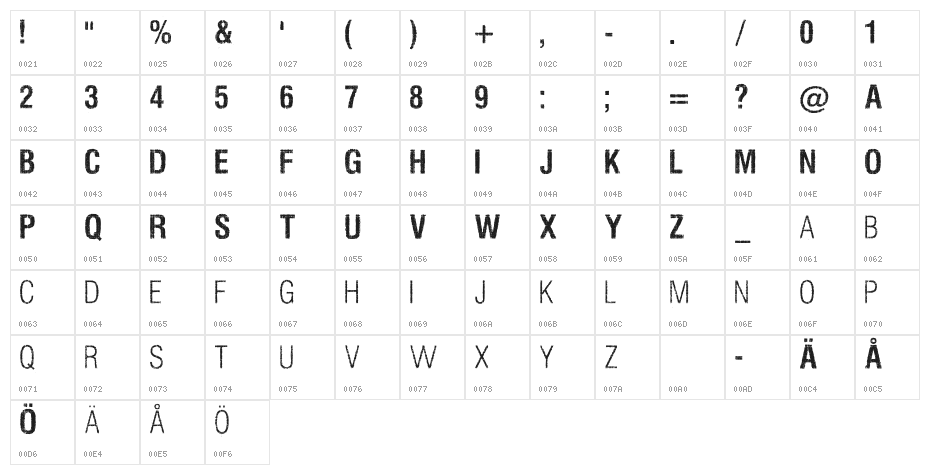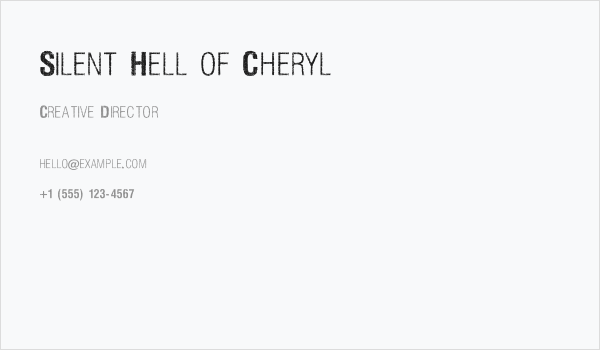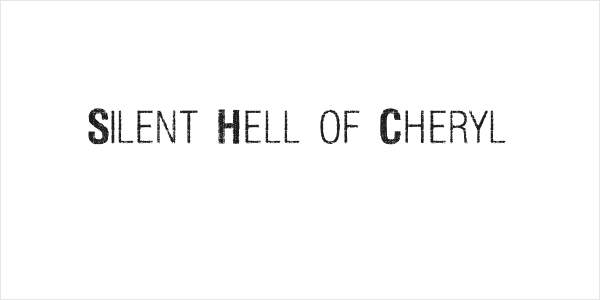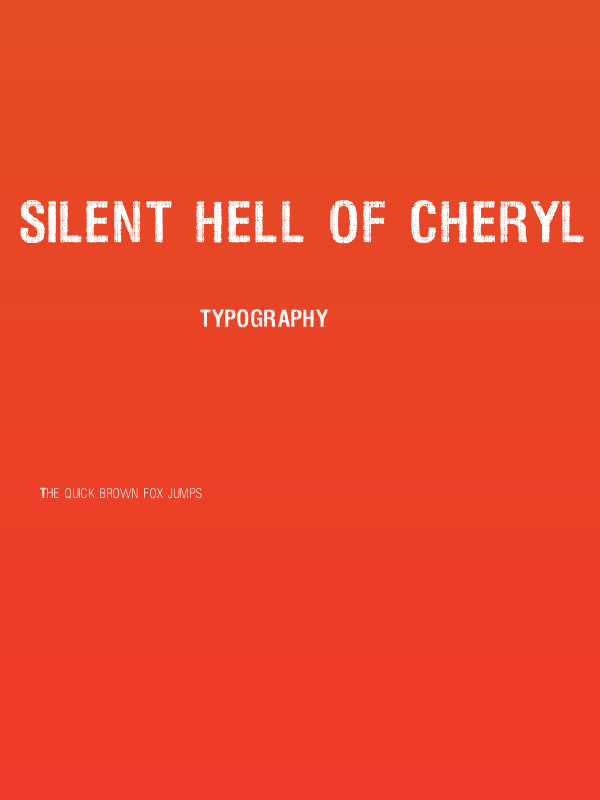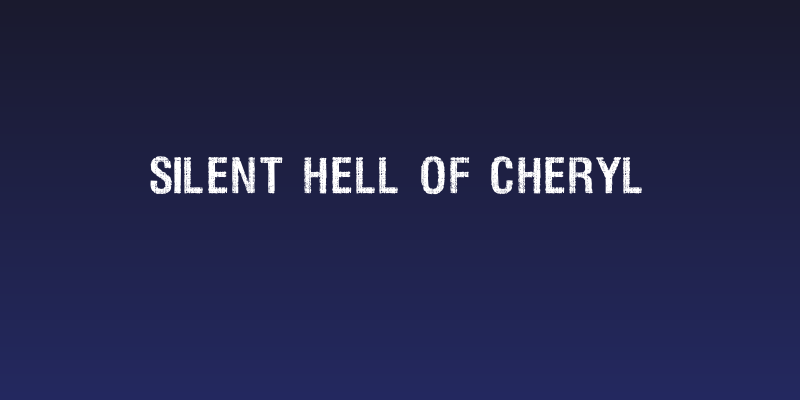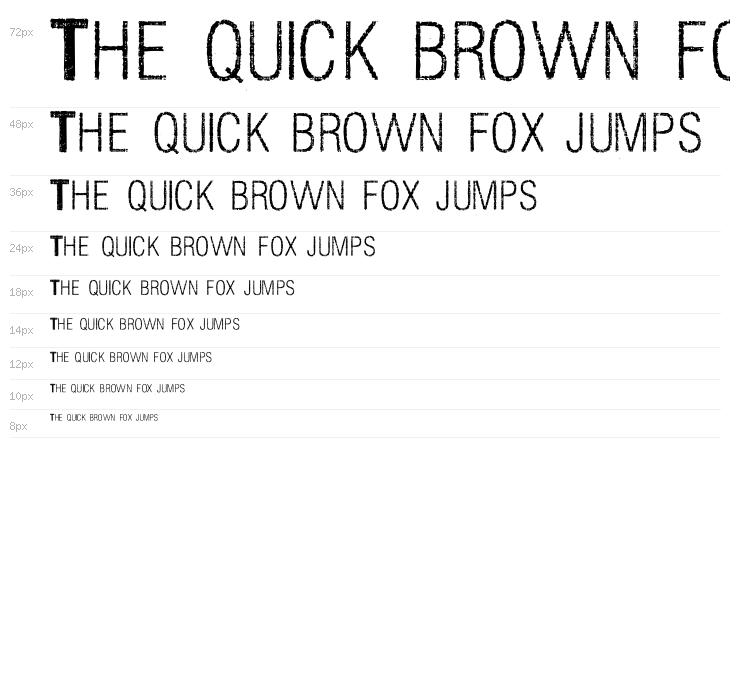
Silent Hell of Cheryl Font
Silent Hell of Cheryl Description
This font exhibits a distressed, grunge aesthetic with a textured appearance that mimics the look of worn or eroded surfaces. The uppercase letters are bold and impactful, while the lowercase letters maintain a consistent style, offering a cohesive yet rugged look. The numbers and special characters follow the same distressed theme, making them suitable for designs that require a vintage or industrial feel. The font's unique texture adds character and depth, making it ideal for projects that aim to convey a sense of history or rawness.
| Proposed Projects | Ideal for posters, album covers, branding for edgy or vintage-themed products, and any design requiring a rugged, worn look. |